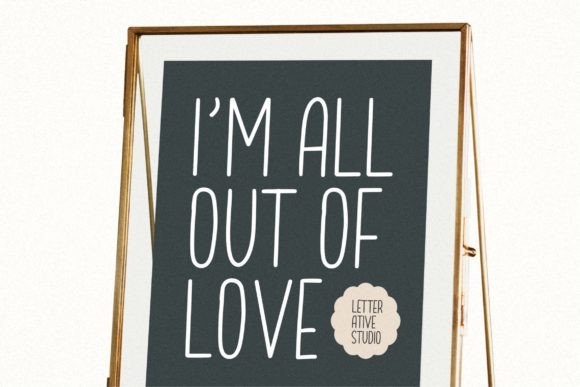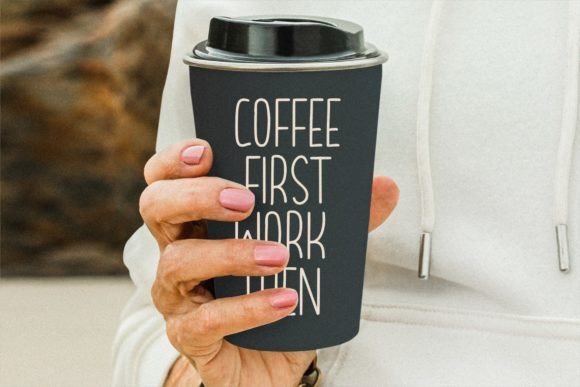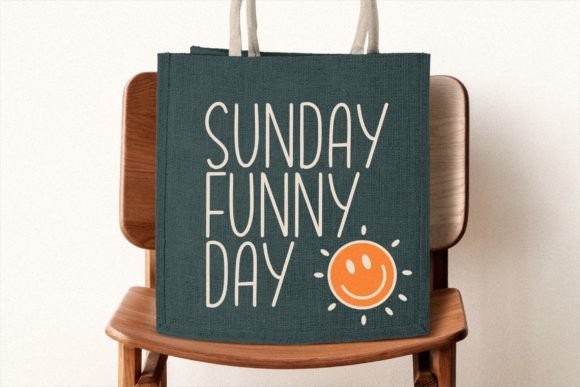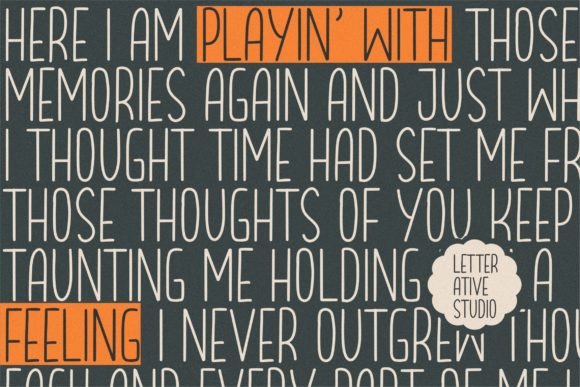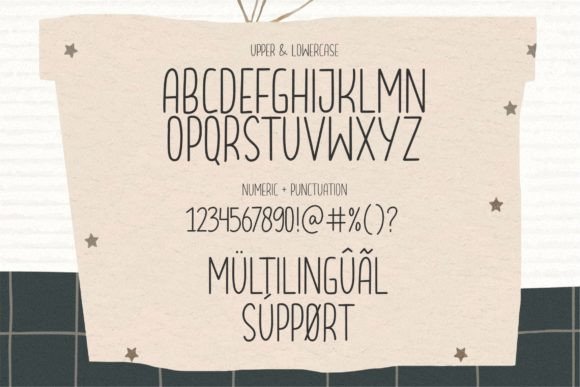
Dream Story Font: The Perfect Monoline Handwritten Companion for Designers and Crafters
Are you on the lookout for a font that can elevate your design game and add a personal touch to your crafts? Look no further than the Dream Story Font! This stunning monoline hand-brushed font is an all-caps handwritten beauty that is sure to become your go-to for any occasion.
What is Dream Story Font?
Dream Story Font is a unique and stylish font that boasts a monoline hand-brushed aesthetic. Its all-caps design makes it perfect for creating eye-catching headings, titles, and text that demands attention. The font’s hand-brushed texture gives it a personal and organic feel, making it ideal for a wide range of design applications.
Key Features of Dream Story Font
- Monoline Hand-Brushed Design: Dream Story Font features a sleek and modern monoline design with a hand-brushed texture, giving it a distinctive and stylish look.
- All-Caps Handwritten Font: This font is an all-caps handwritten font, making it perfect for creating bold and eye-catching text.
- Versatile: Dream Story Font can be used for a wide range of design applications, including crafts, digital design, presentations, and making greeting cards.
- Easy to Read: Despite its hand-brushed texture, Dream Story Font is easy to read, making it perfect for use in body text as well as headings.
Uses for Dream Story Font
Dream Story Font is an incredibly versatile font that can be used for a wide range of design applications. Here are some ideas to get you started:
- Crafts: Use Dream Story Font to add a personal touch to your crafts, such as scrapbooking, card making, and journaling.
- Digital Design: This font is perfect for use in digital design, including social media graphics, blog posts, and website headers.
- Presentations: Add a touch of elegance to your presentations with Dream Story Font, making them more engaging and memorable.
- Greeting Cards: Use Dream Story Font to create beautiful and personalized greeting cards for any occasion.
Why Choose Dream Story Font?
So why should you choose Dream Story Font over other fonts? Here are just a few reasons:
- Unique Design: Dream Story Font boasts a unique and stylish design that will set your designs apart from the crowd.
- High-Quality: Dream Story Font is a high-quality font that is designed to produce crisp and clear text, even at small sizes.
Tips for Using Dream Story Font
Here are a few tips for getting the most out of Dream Story Font:
- Experiment with Colors: Dream Story Font looks great in a wide range of colors, so don’t be afraid to experiment and find the perfect hue for your design.
- Use it with Other Fonts: This font pairs well with other fonts, so try using it in combination with other styles to create a unique and eye-catching design.
- Pay Attention to Size: Dream Story Font is a bold and eye-catching font, so make sure to adjust the size accordingly to avoid overwhelming your design.